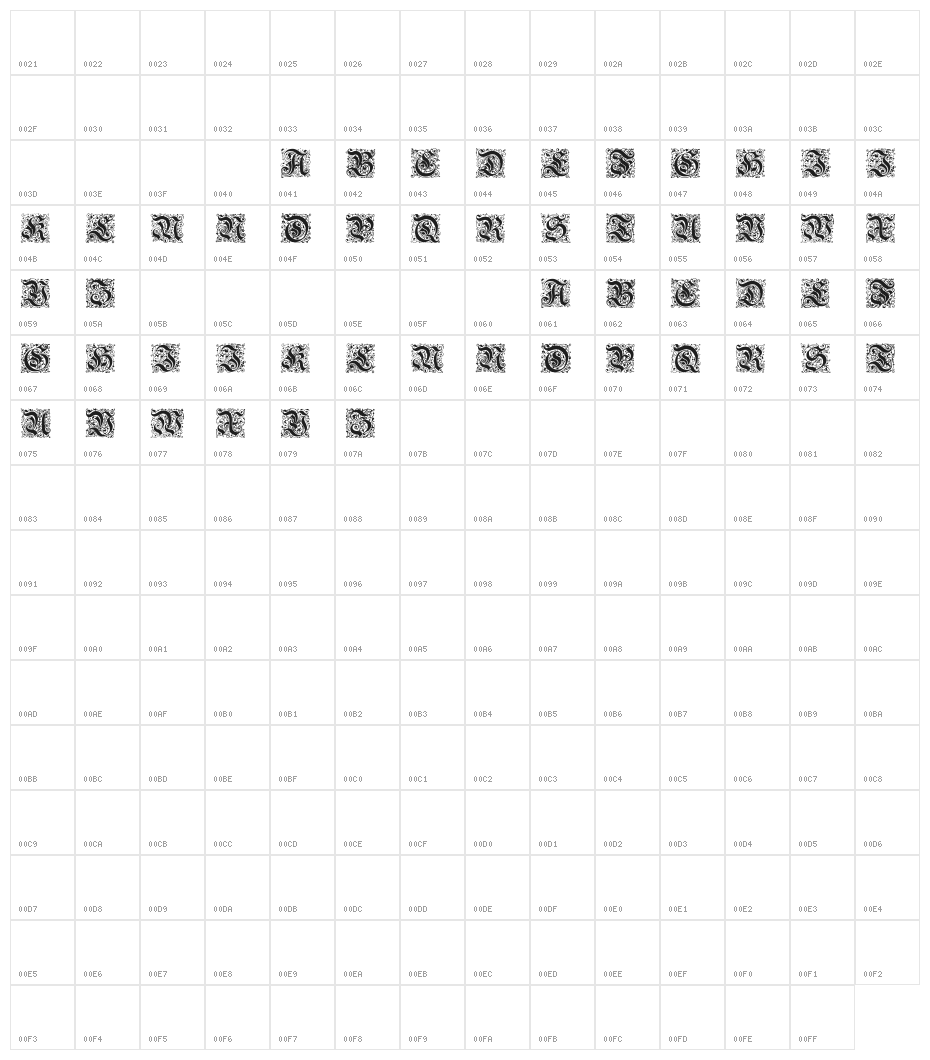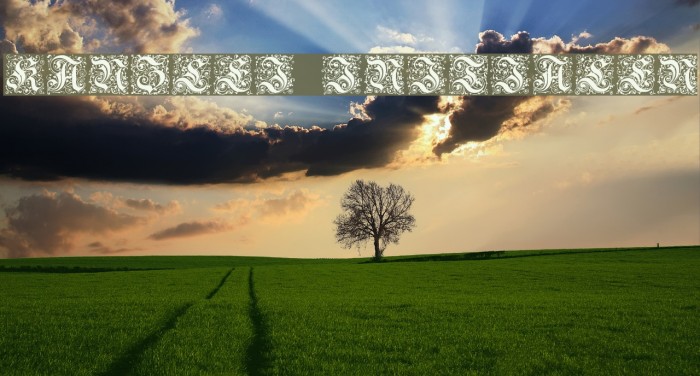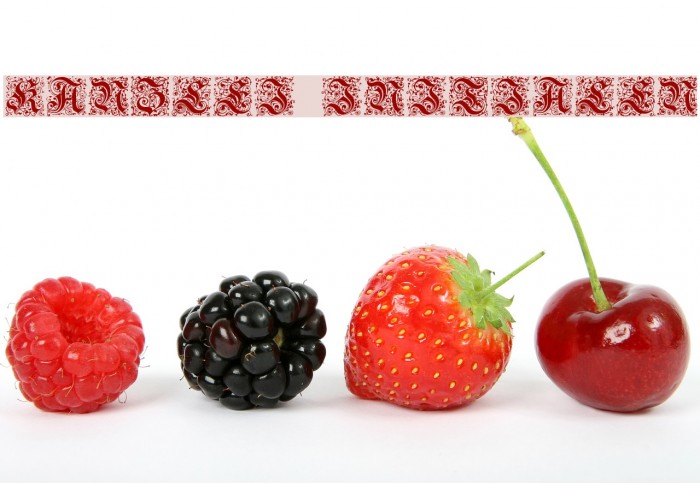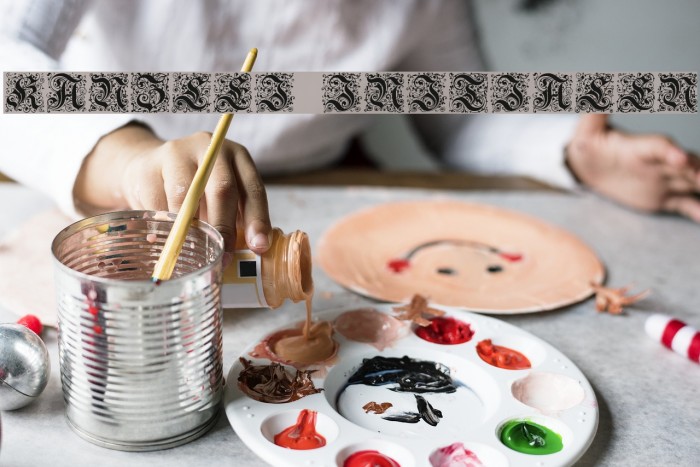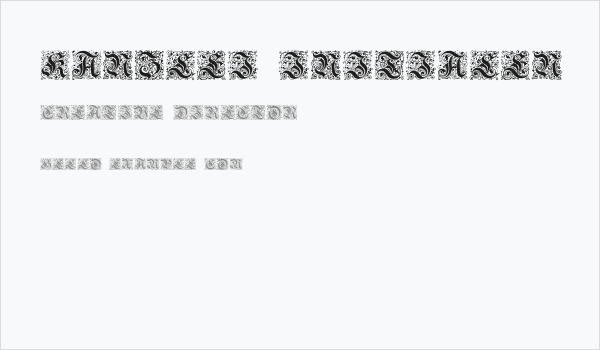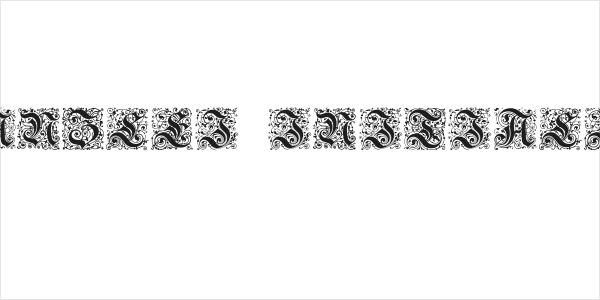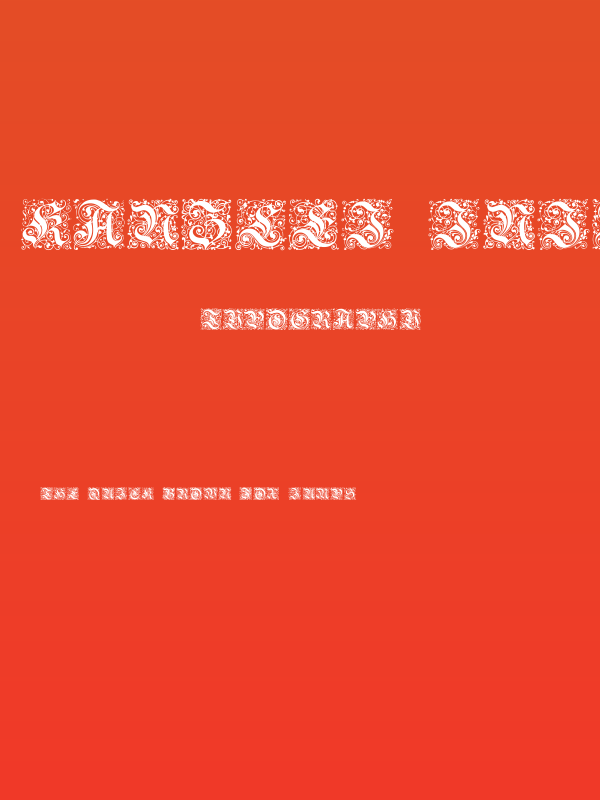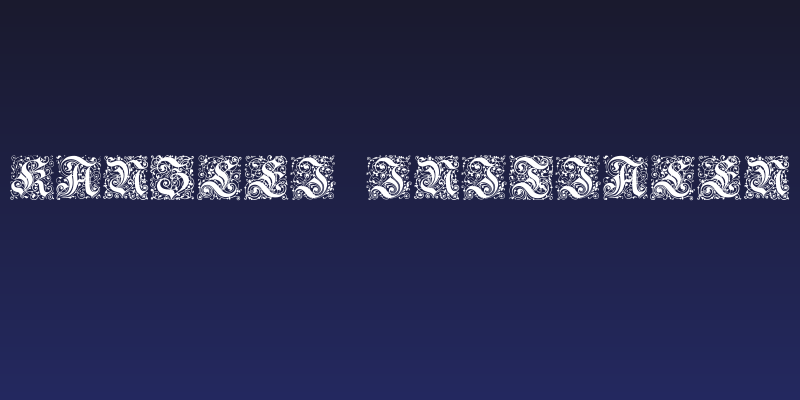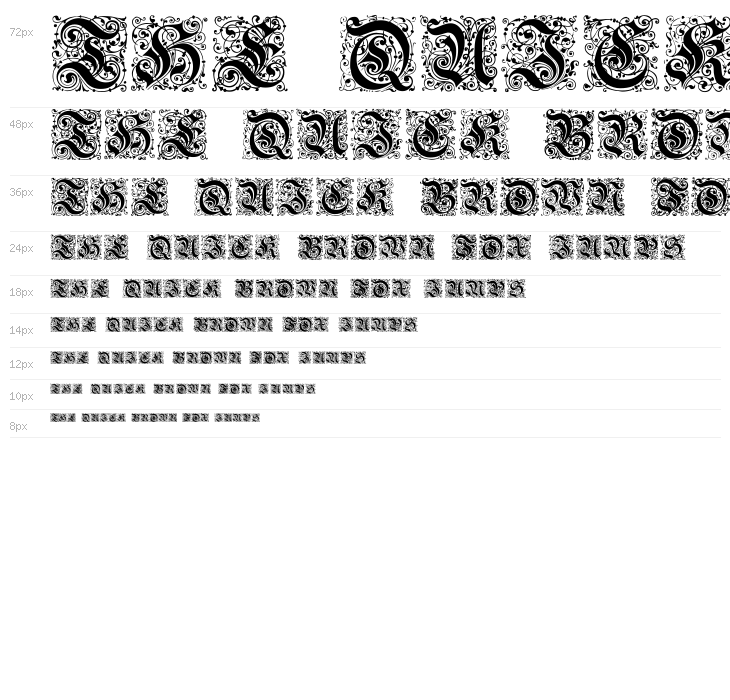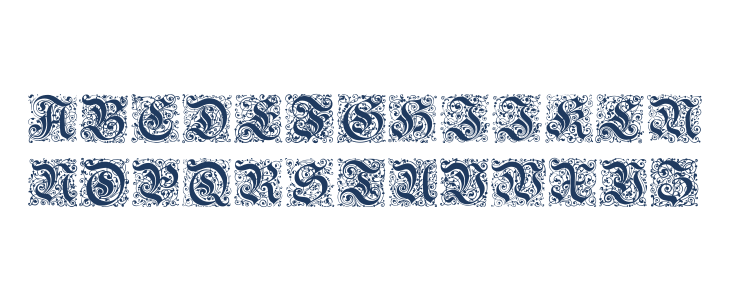
Kanzlei-Initialen Font
Kanzlei-Initialen Description
This font is a highly decorative and ornate typeface, characterized by its intricate swirls and flourishes that envelop each letter. The design is reminiscent of vintage or classical styles, often seen in historical documents or formal invitations. Each character is encased in a square, adding a structured element to the otherwise elaborate design. The detailing is consistent across both uppercase and lowercase letters, as well as numbers and special characters, making it a cohesive set. The font's complexity and embellishments make it unsuitable for body text but ideal for decorative purposes.
| Use Case | Logos, Headlines, Decorative elements |
| Proposed Projects | Ideal for wedding invitations, historical document recreations, or any project requiring a vintage or classical aesthetic. |